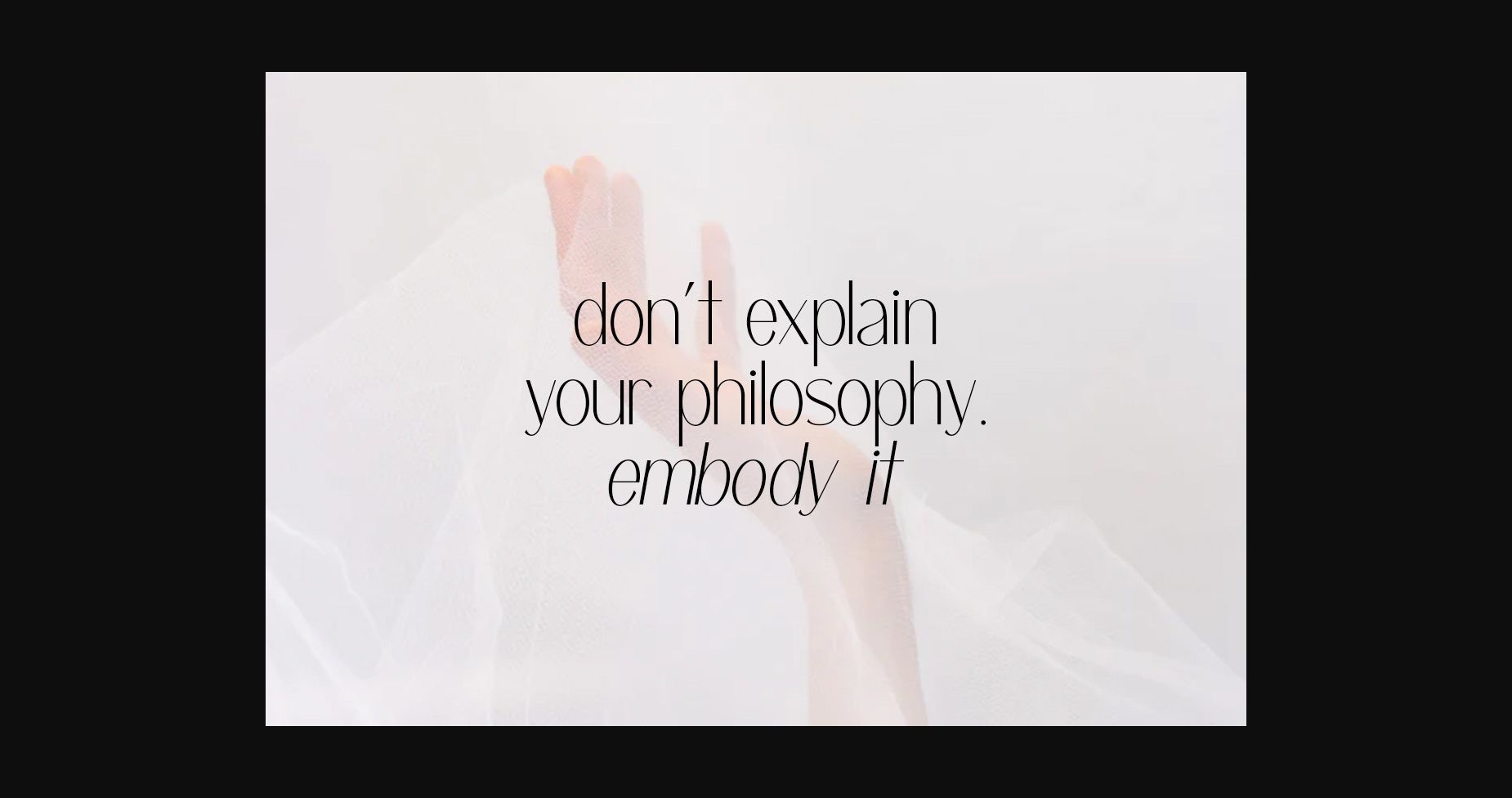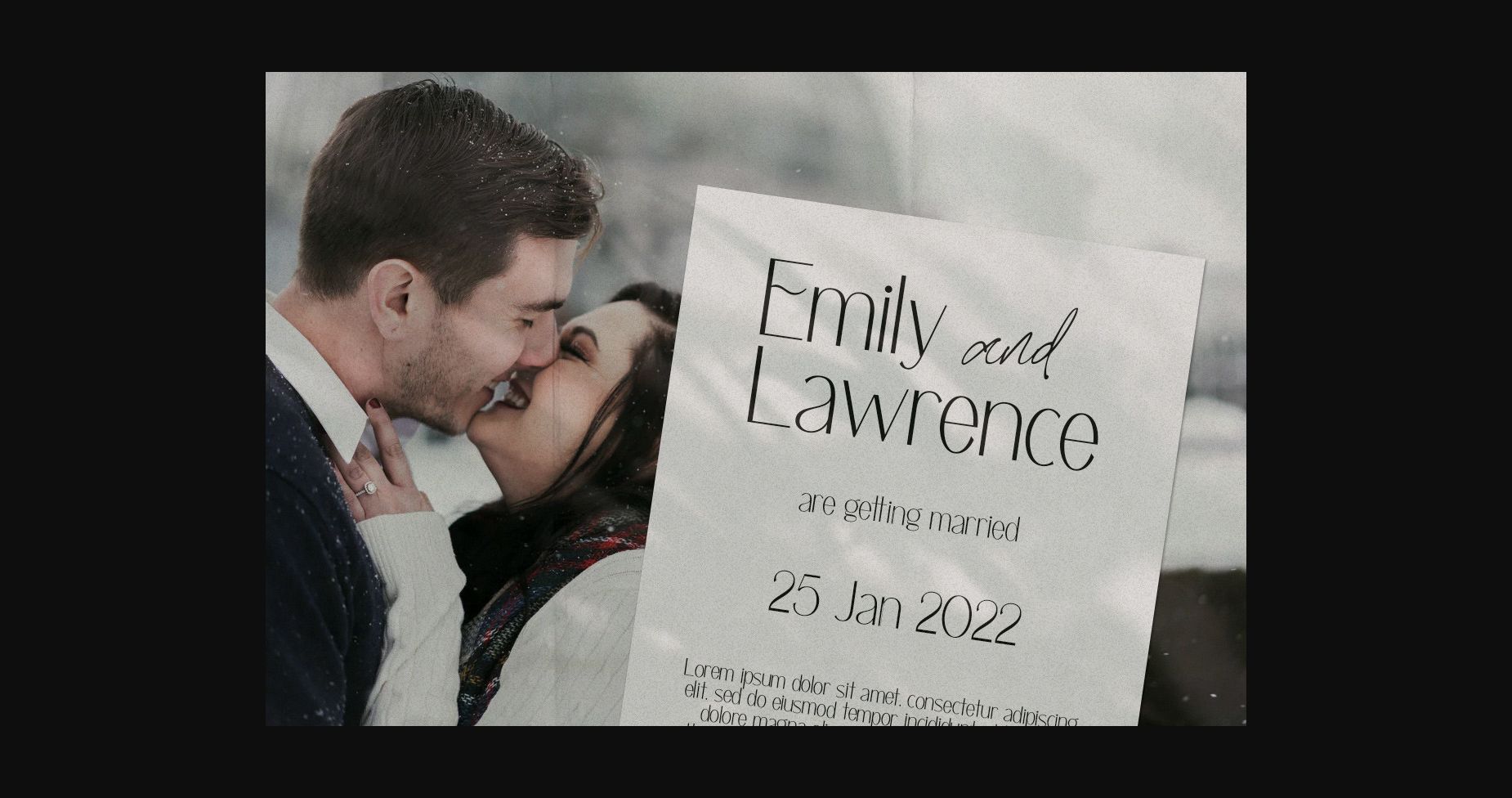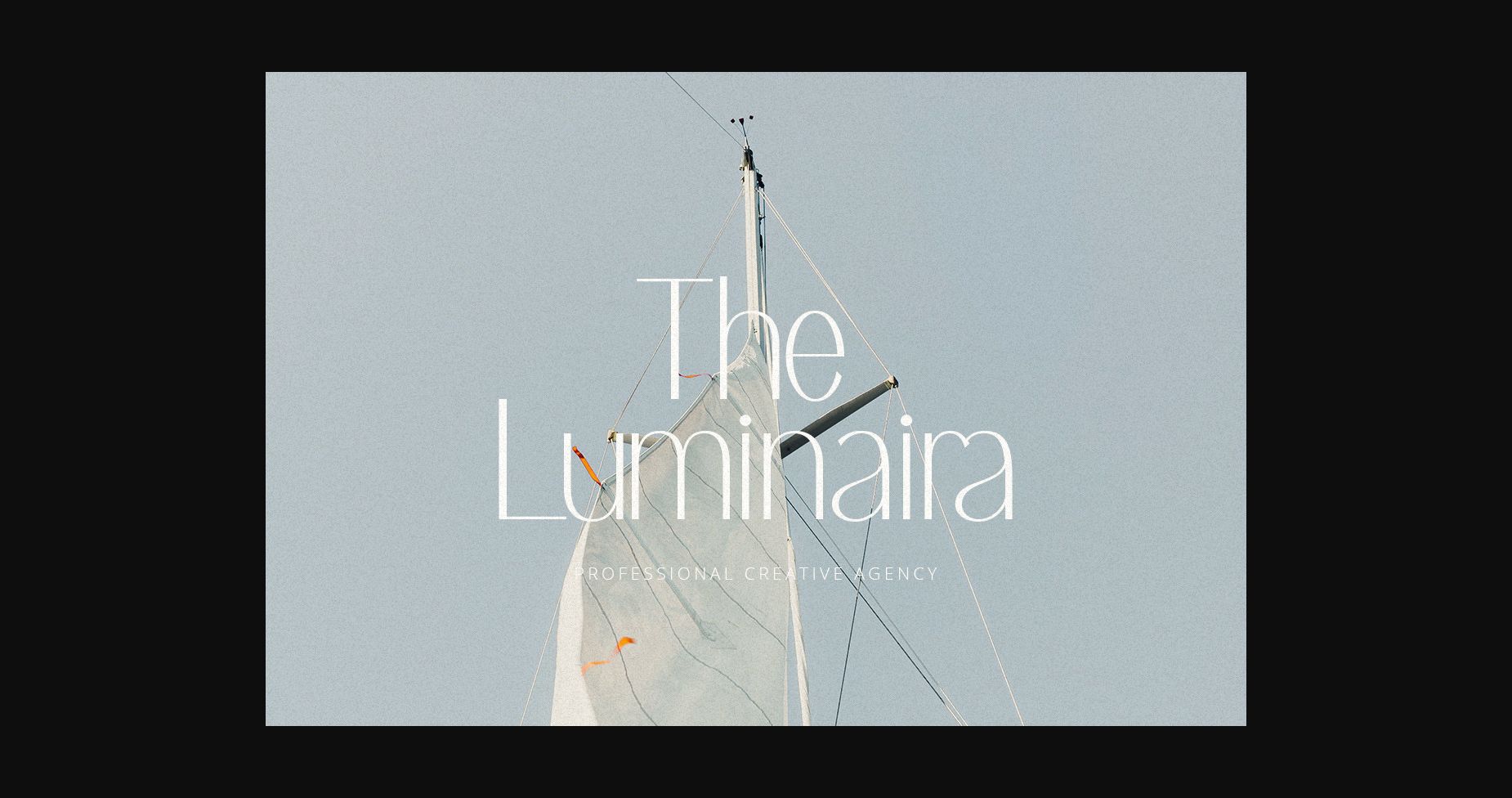
About Altaria Miguel Font
Altaria Miguel is a simple and thin lettered sans serif font. Dainty and joyful, this font will be ideal for writing wedding invitations, cards or any other design that may need a romantic, personalized touch!